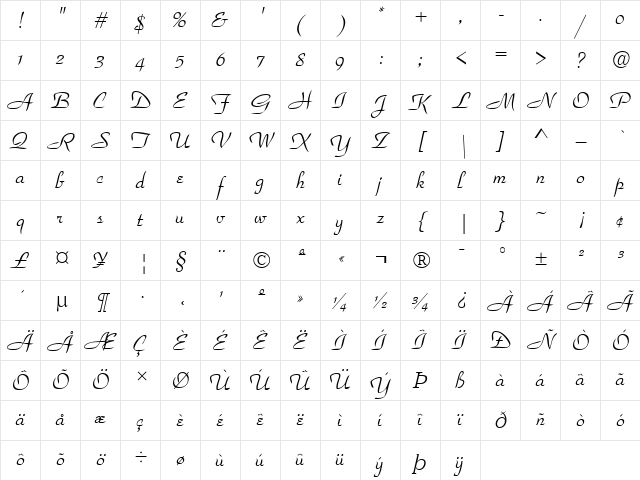
Seymoure
Design Context for Seymoure
Seymoure is a composed and adaptable typeface that performs quietly and consistently across a wide range of design contexts.